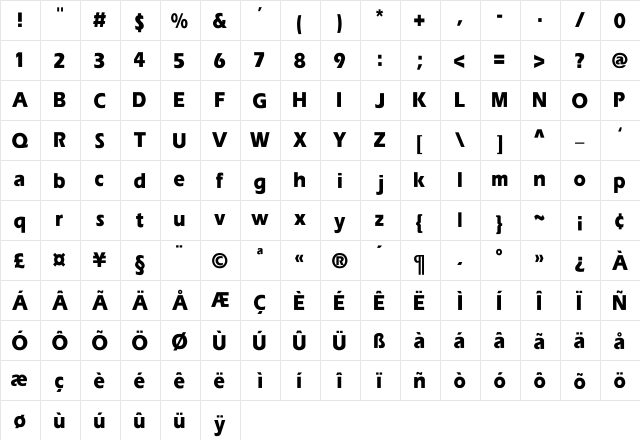
Eras-Bold Thin Regular
Design Context for Eras-Bold Thin Typeface
Eras-Bold Thin takes a measured approach to typography — its balanced proportions and neutral character make it a reliable workhorse for both digital and print work. The heavy weight commands attention and anchors typographic hierarchies.